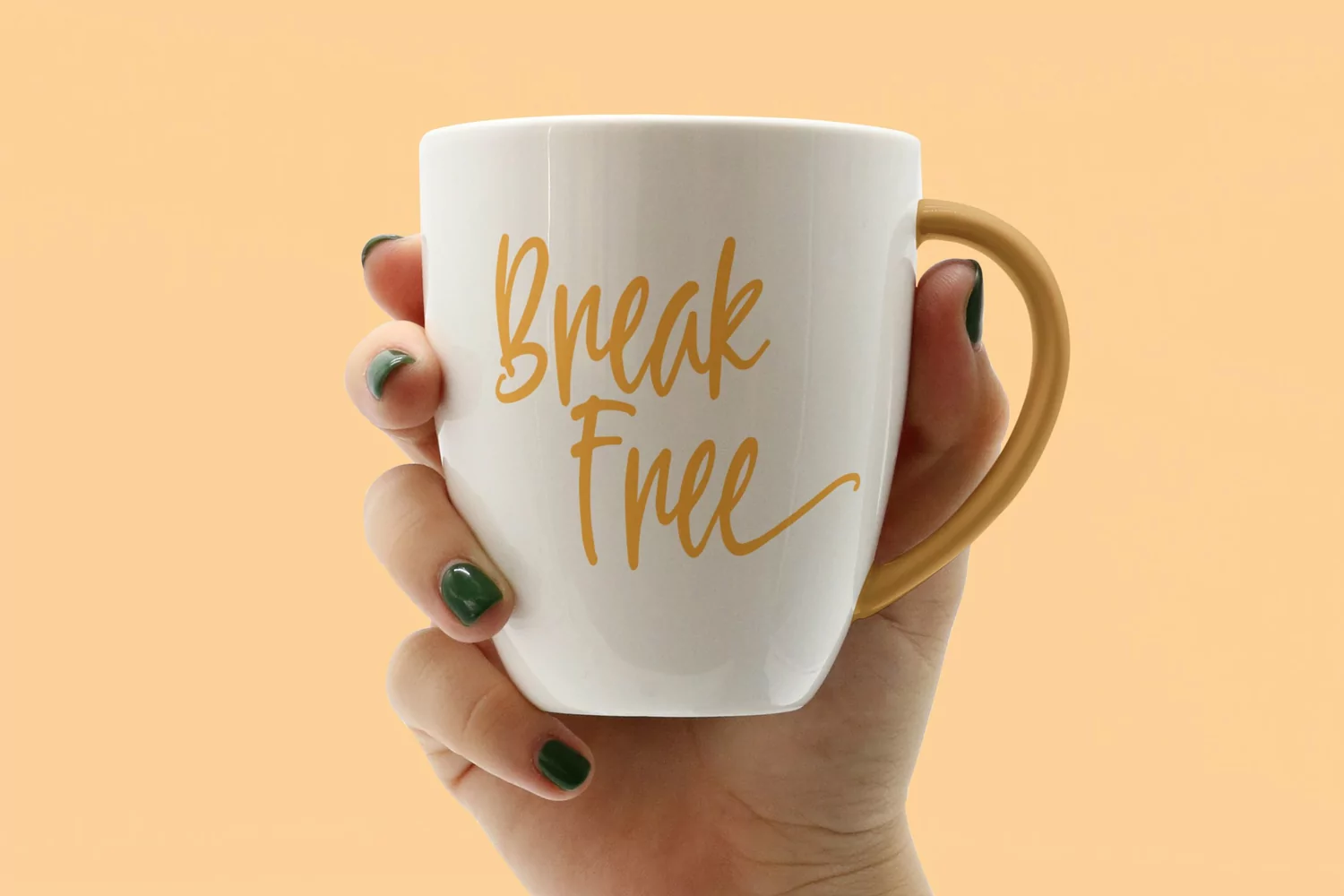
Moody Sunshine - Lovely Script Font that contain lowercase, uppercase, symbol, and also support multi language. There’s a lot ligatures in this font. This Font also comes with ligatures, alternates and many more. this font suitable for fashion, branding, catalog and other design what you want.
Moody Sunshine